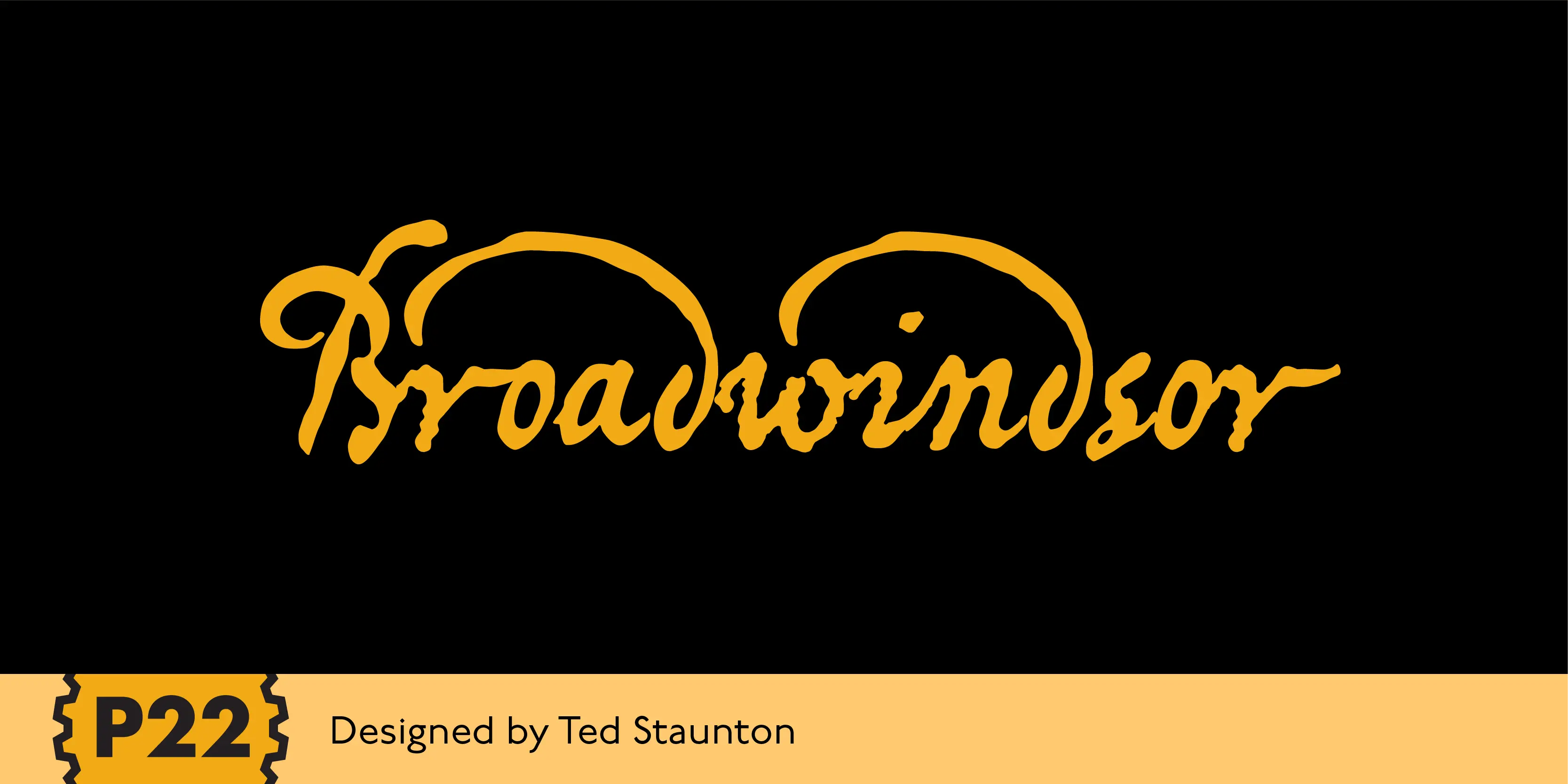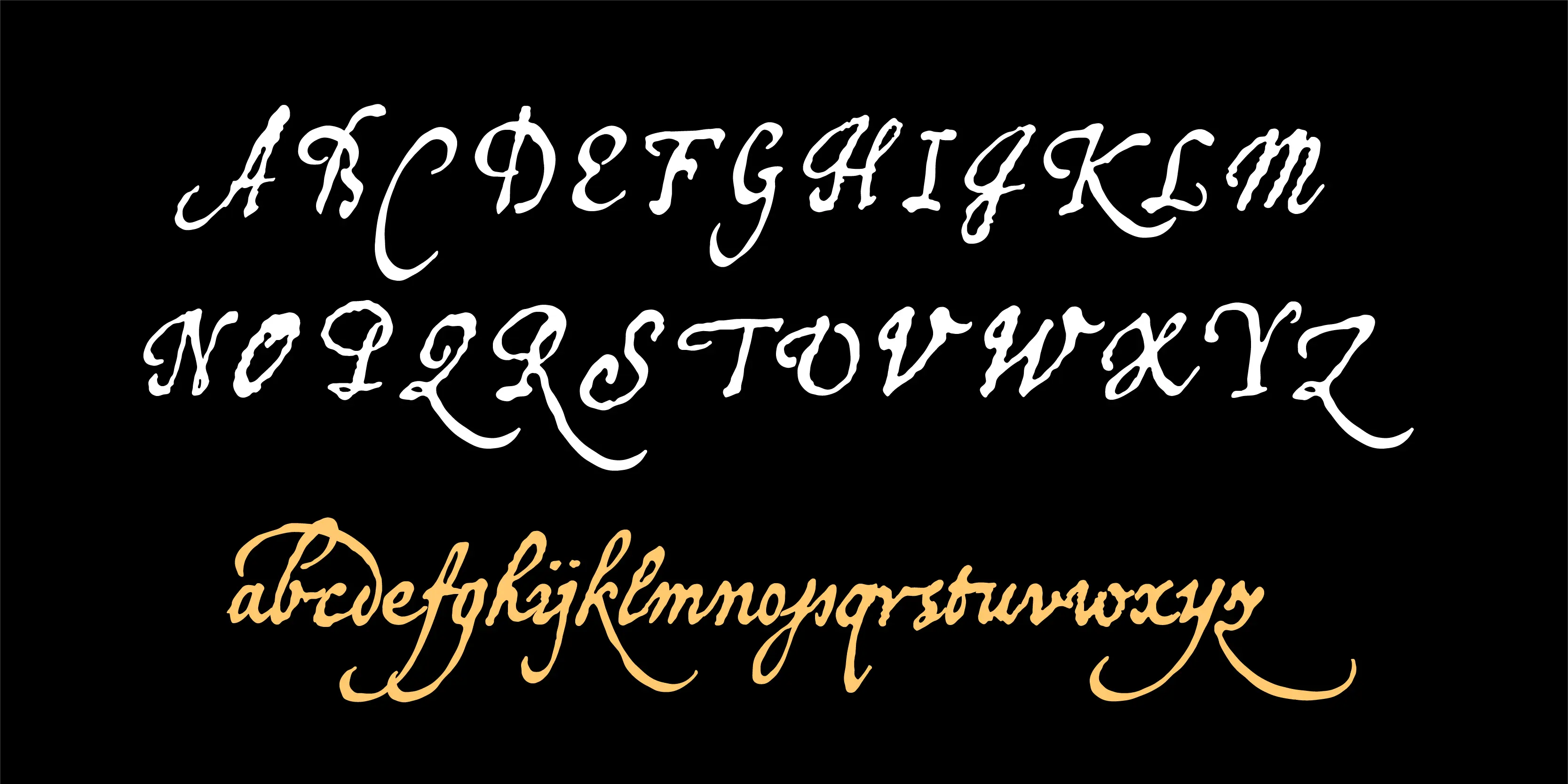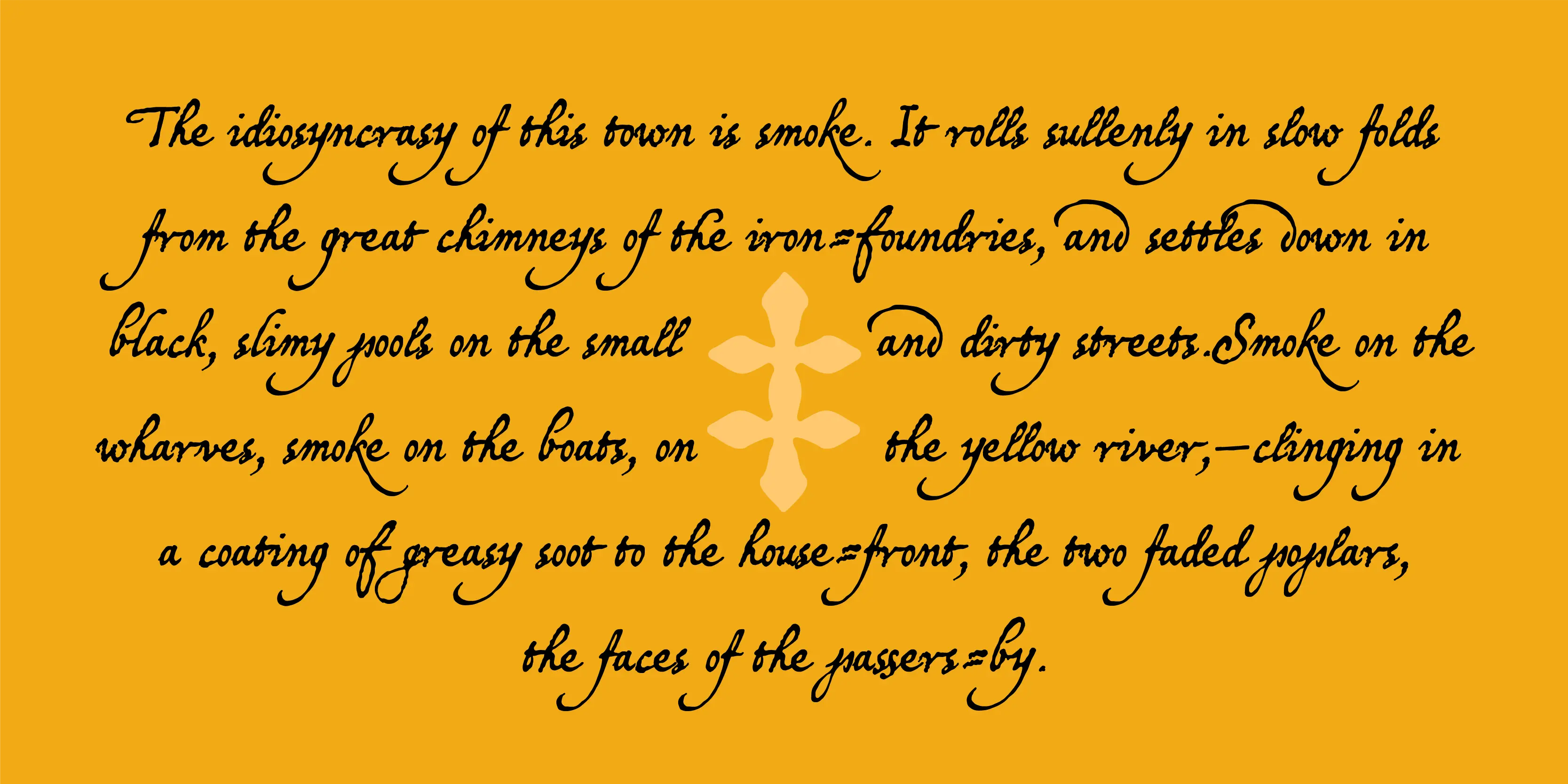
Broadwindsor Font
Broadwindsor designed by Ted Staunton for his historic novel. The Broadwindsor font is a neatly written script with capitals and lower case in a close relationship.